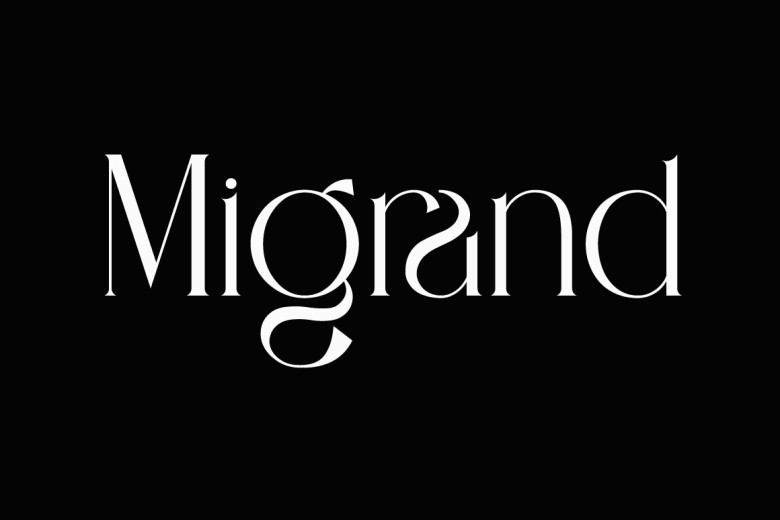
Migrand Font
Migrand font is an elegant serif styleface perfect for logos, magazines and social media designs. Already matched and ready to use together in your next design project – Migrand gives your designs an added layer of elegance, classiness and chicness!
Migrand Serif Font